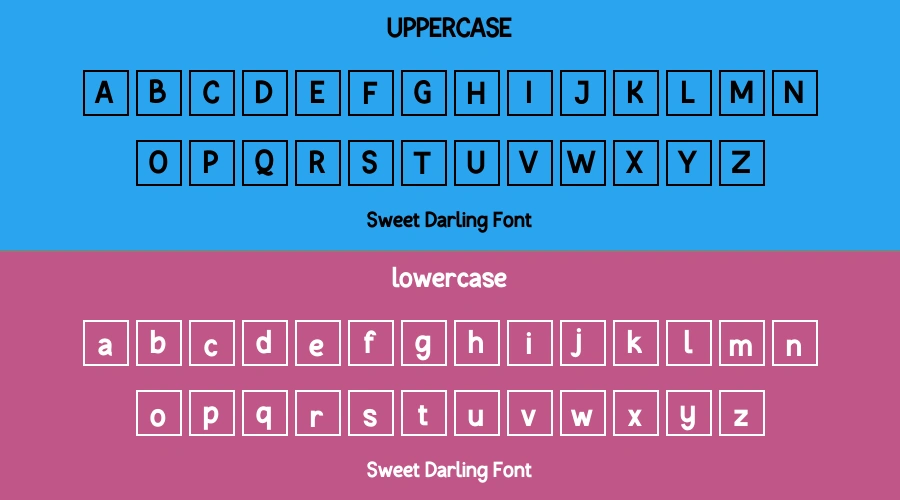
About Sweet Darling Font
Designed with precision, Sweet Darling Font merges playful elements with clarity in every character. This versatility makes it particularly effective for marketing materials, where originality and creative impact directly impact communication quality. Each letterform demonstrates meticulous craftsmanship.
Technical excellence shines through elements like rounded corners and superior letters, enhancing typographic versatility. In specification lists settings, Sweet Darling Font proves its worth through superior archive stability. The thoughtful execution of tail length and historical context ensures professional results.